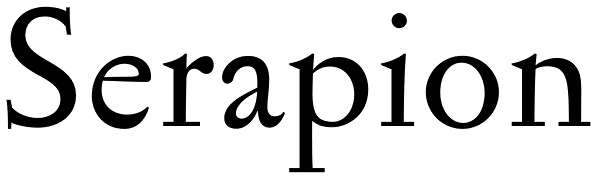
Serapion
Another variation on the Renaissance-Baroque Roman face, it extends the selection of text type faces. In comparison with Jannon, the contrast within the letters has been enhanced. The dynamic elements of the Renaissance Roman face have been...